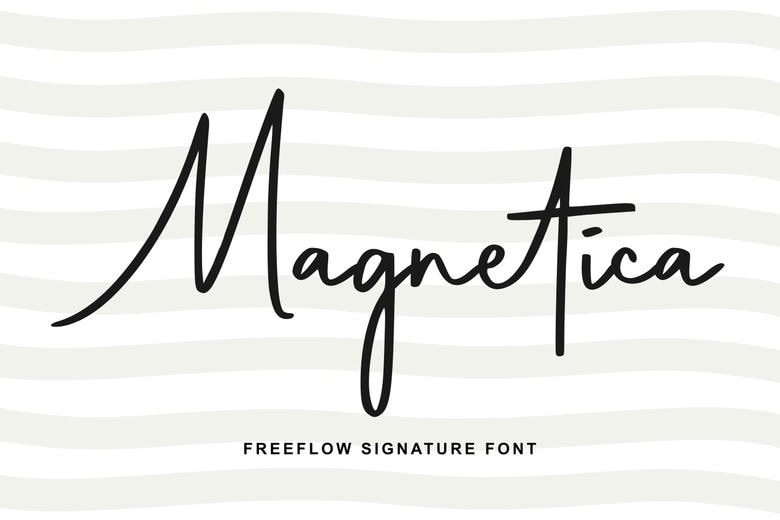
Magnetica Font
Magnetica is a signature font that combines the charm of handwritten strokes with a modern, sophisticated style. Its smooth curves, fine lines, and natural flow give it an elegant appearance.
This font adds warmth and personality to any design. Its elegant script style looks polished but still feels friendly, so it works well for creative projects that need a stylish handwritten look.
Magnetica works well for branding, packaging, menus, wedding invitations, social media graphics, or quotes. It gives every project a unique and memorable style. The letters connect smoothly and the shapes are balanced, so it looks polished but still feels handwritten.
Magnetica Signature Script Font